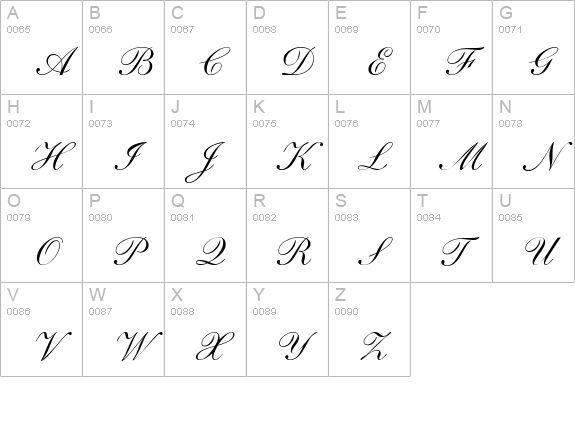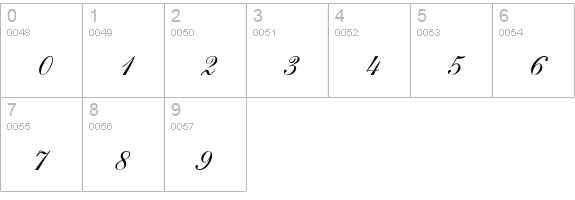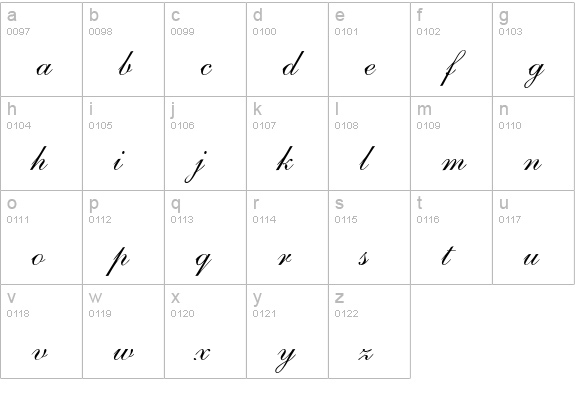
S721-Script-One-Regular is the standard, neutral variant in the S721 typeface family \xE2\x80\x94 well suited to general body text, paragraphs, and standard typographic work.
S721-Script-One-Regular font is a sophisticated and elegant typeface that exudes charm and grace. With its graceful curves and flowing strokes, this font is perfect for adding a touch of class to any design project. Whether you are creating wedding invitations, branding materials, or social media graphics, S721-Script-One-Regular is sure to make a lasting impression. The best part? This stunning font is available for free download at FontsMarket.com. Now you can elevate your designs without breaking the bank. Don't miss out on the opportunity to add this beautiful font to your collection. Download S721-Script-One-Regular today and let your creativity flourish!